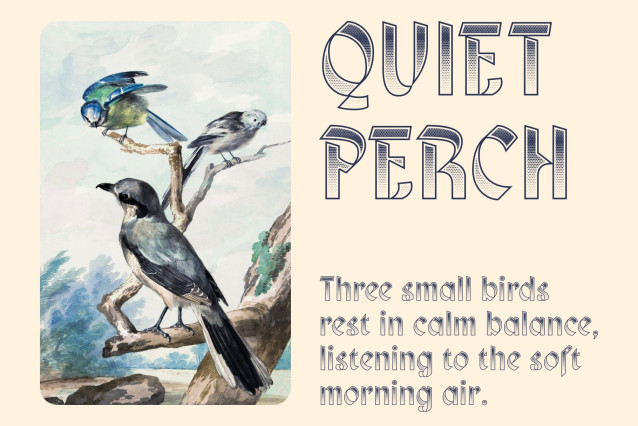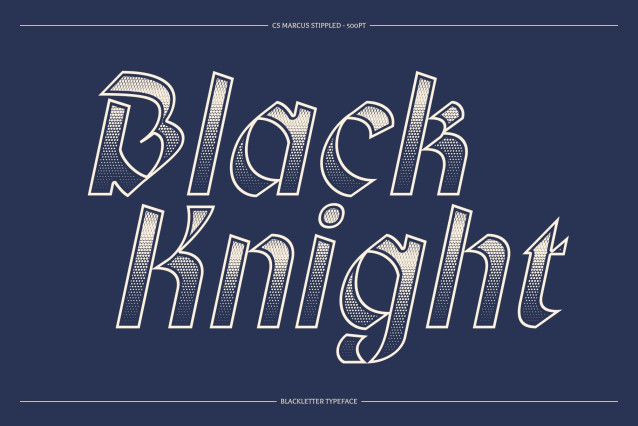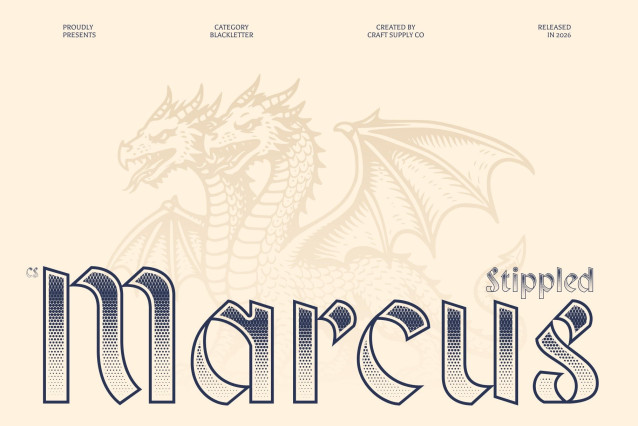
CS Marcus stippled Font
CS Marcus Stippled – Blackletter Font: A Timeless Expression of Strength and Tradition
Classic Blackletter with Medieval Inspiration
This font is a bold blackletter display font inspired by the power and elegance of medieval calligraphy. Its sharp, angular letterforms and strong vertical structure evoke the authority of ancient manuscripts, creating a commanding presence ideal for designs that seek prestige, tradition, and historical depth.
Intricate Letterforms with Ornamental Strength
The font’s carefully crafted details reflect the artistry and craftsmanship of classic blackletter typography. Angular strokes, decorative elements, and structured forms combine to convey strength, heritage, and sophistication making every word feel ceremonial and impactful.
Stippled Texture for Vintage Craftsmanship
The stippled finish introduces a dense dotted texture that enhances the antique atmosphere of the letterforms. This dotwork effect adds visual richness and a handcrafted print feel, reinforcing the font’s historic and artistic character while giving designs a tactile, vintage impression.